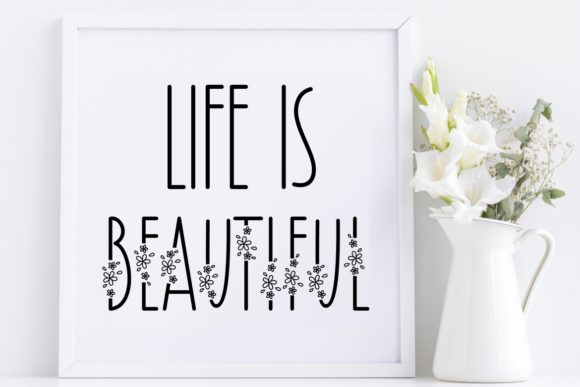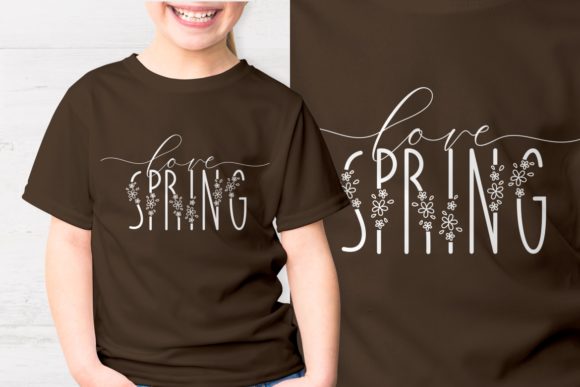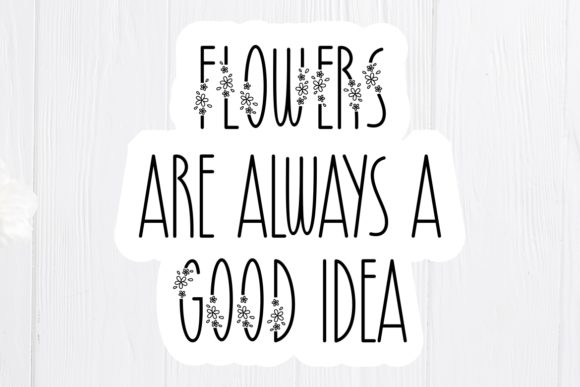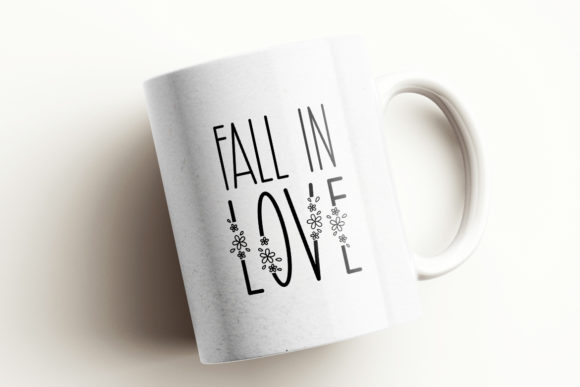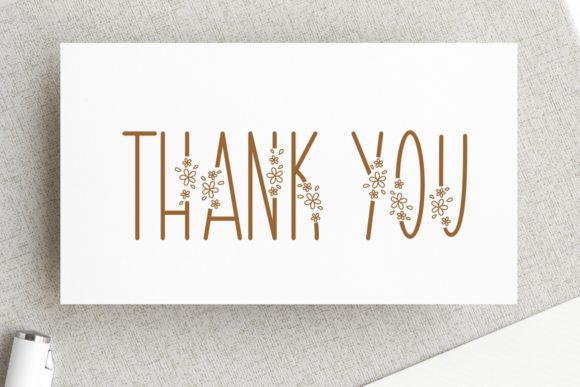
Unleash the Beauty of Spring with August Font
There’s something special about stepping into a craft store on a sunny spring morning, surrounded by vibrant colors and the sweet scent of flowers. The creative juices start flowing, and you can’t wait to get your hands on some gorgeous paper, glitter, and – of course – the perfect font to match your masterpiece. This is exactly where August Font comes in – a stunning monoline font that’s perfect for all your spring crafting projects.
Designed to capture the essence of blooming flowers, August Font is a valuable addition to any designer’s toolkit. Its elegant, flowing lines and delicate details make it ideal for creating beautiful invitations, greeting cards, and other paper crafts. Whether you’re a seasoned designer or a crafty beginner, August Font is sure to inspire your creativity and bring your spring projects to life.
August Font Key Features
- Font Family: August Font is a modern sans-serif font designed for digital use. It is available in multiple weights, from light to bold.
- Unique Characteristics: The font features a clean and minimalist design, with a focus on legibility and readability. It is particularly well-suited for digital applications, such as websites, mobile apps, and digital signage.
- Font Metrics: The font metrics are carefully designed to ensure optimal readability and compatibility across various devices and platforms.
August Font Review
Overall, I was quite impressed with the August font. ✨ It has a modern and clean aesthetic that makes it suitable for various design applications. The font is well-balanced, with a good mix of geometric and rounded shapes that give it a friendly feel. The font also supports a wide range of languages, making it a great option for multilingual projects.
- Modern and clean aesthetic
- Well-balanced design with a mix of geometric and rounded shapes
- Supports a wide range of languages
- Works well for both headings and body text
- Some characters may appear too thin or fragile, especially at smaller font sizes ⚠️
- The font may not be suitable for use in very large or very small font sizes
- May not be the best option for projects that require a lot of bold or italic text
Overall, I would recommend the August font for projects that require a clean and modern aesthetic. While it may have some limitations, it is a solid choice for a wide range of design applications.
Tips for Getting the Most Out of the August Font
Use the August font for headings and titles to add a touch of elegance and sophistication to your designs.
Pair the August font with a clean and minimalist background to let the text take center stage.
Experiment with different font sizes and colors to create visual interest and hierarchy in your designs.
The August font is ideal for:
Branding and logos
Editorial and publishing designs
Any design that requires a touch of sophistication and elegance
Alternatives to August Font for Designers
Montserrat is a modern sans-serif font that is highly legible and versatile. It is suitable for body text, headings, and titles. Montserrat is a great alternative to August Font as it offers a similar clean and minimalist aesthetic, but with a more geometric and structured feel. Use Montserrat for digital products, websites, and mobile apps where a clean and modern look is desired.
Inter is a sans-serif font designed for digital interfaces. It is highly legible and works well for body text, headings, and titles. Inter is similar to August Font in terms of its clean and minimalist aesthetic, but it has a more neutral and subtle feel. Use Inter for digital products, websites, and mobile apps where a clean and modern look is desired.
Lato is a modern sans-serif font that is highly legible and versatile. It is suitable for body text, headings, and titles. Lato is a great alternative to August Font as it offers a similar clean and minimalist aesthetic, but with a more rounded and friendly feel. Use Lato for digital products, websites, and mobile apps where a clean and approachable look is desired.